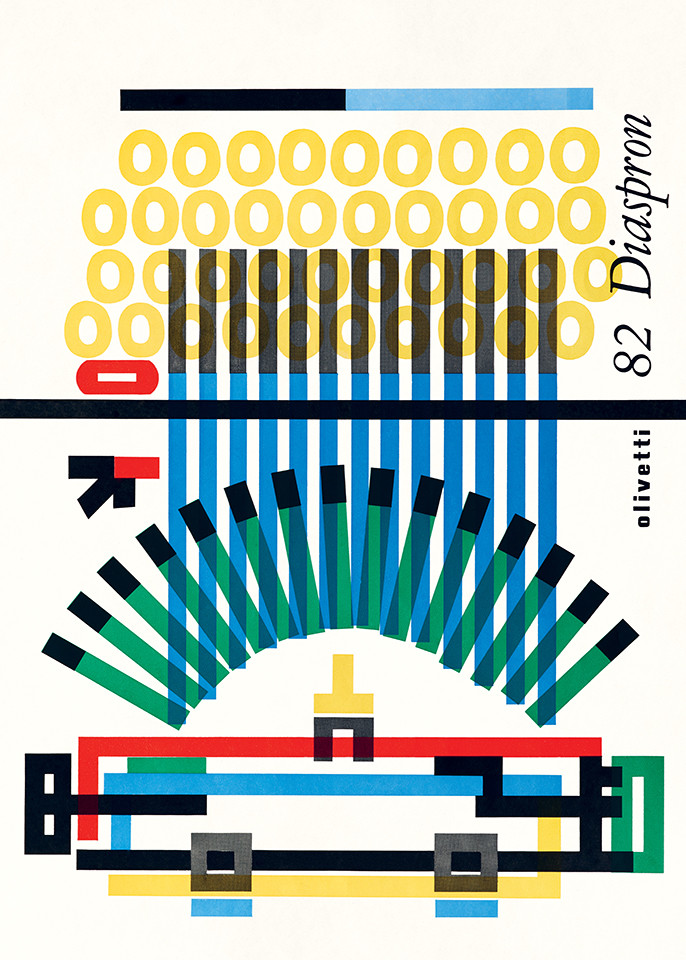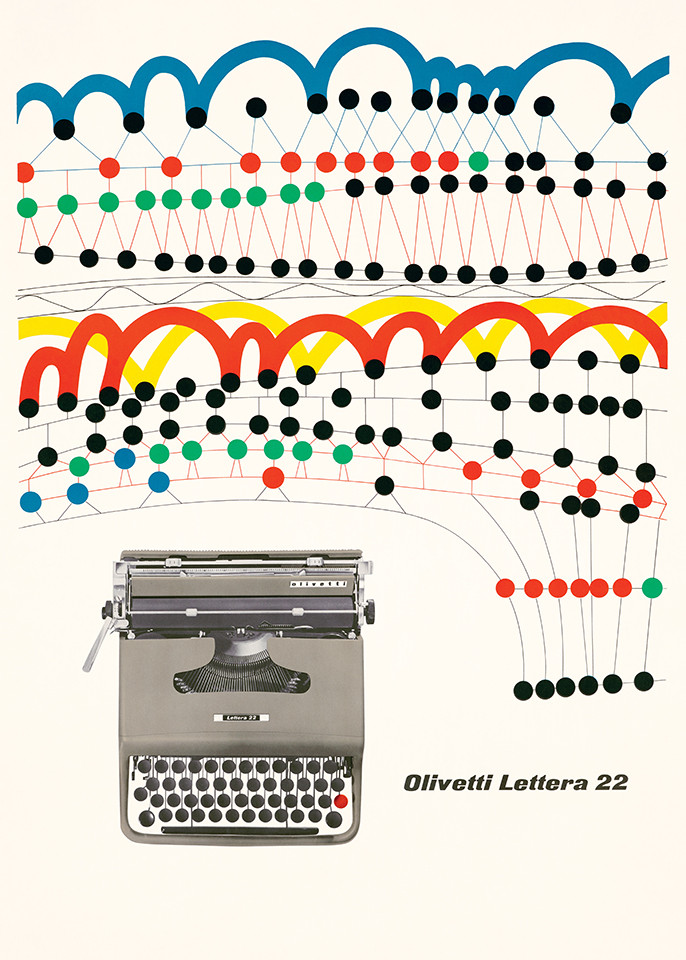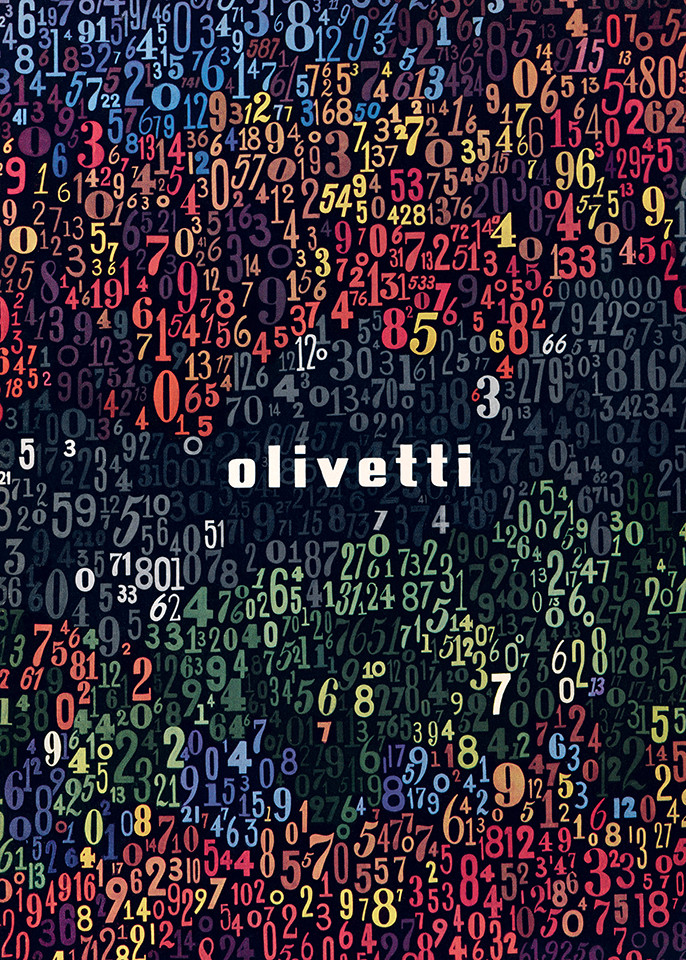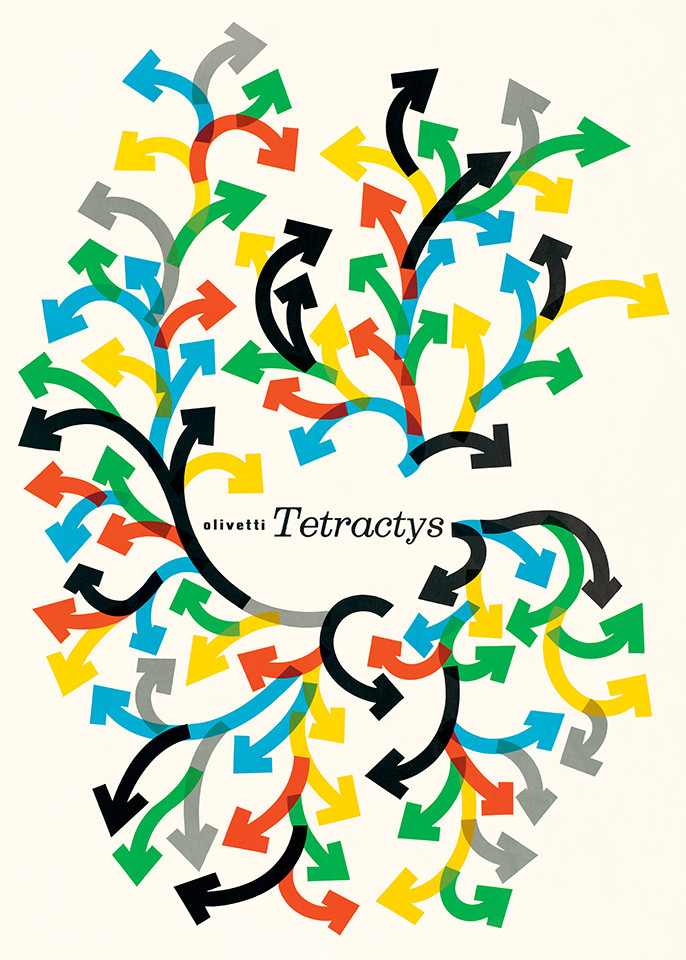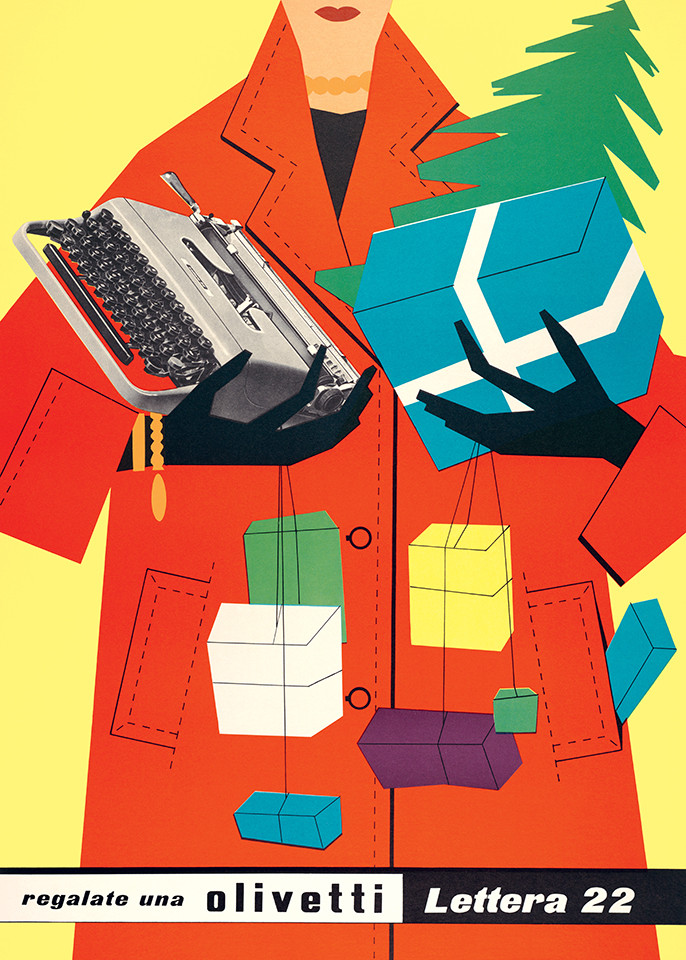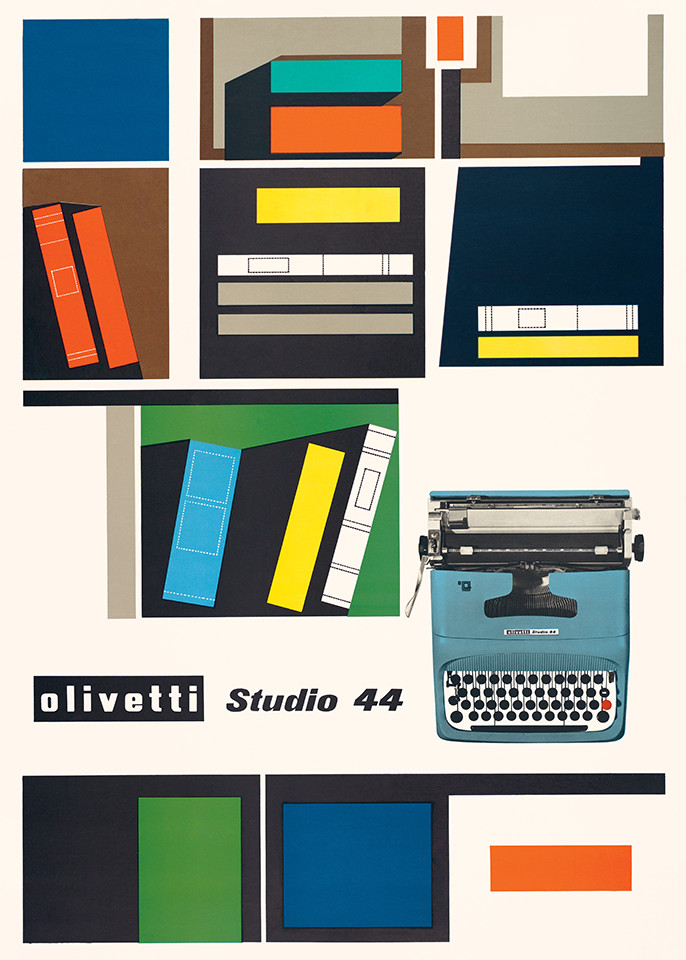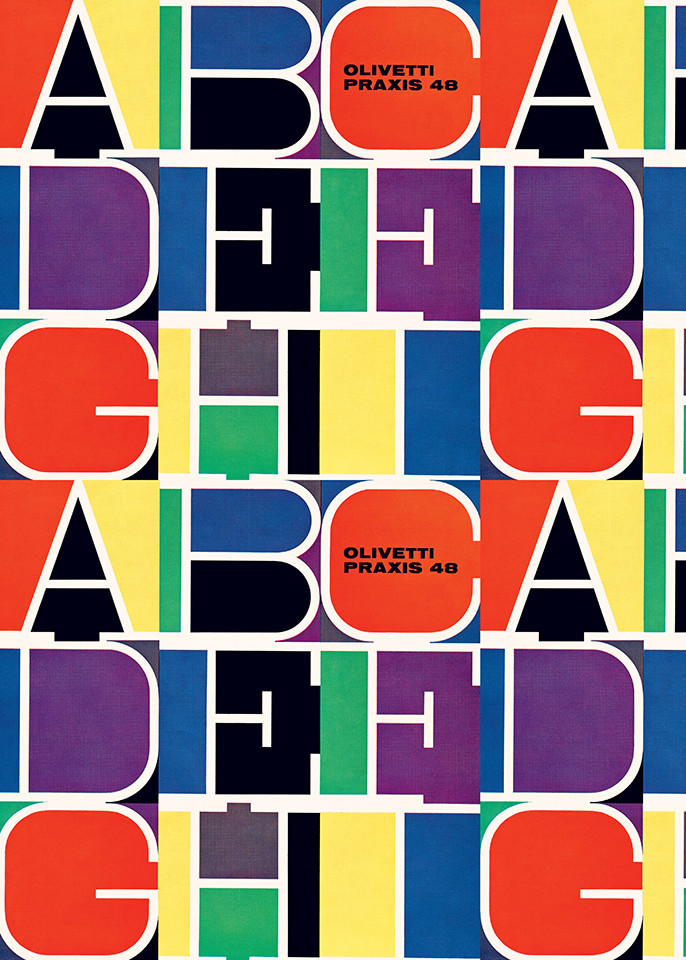
16 oversize sheets featuring iconic art direction from the legendary product design firm
A powerhouse of twentieth-century industrial design, Italian manufacturer Olivetti elevated office life with its stylish and innovative typewriters and calculators. Equally arresting are the company’s print advertisements, which celebrate the devices’ sophisticated mechanics and approachable form factor with smart graphics and vibrant color.
Olivetti Creative Papers collects sixteen of these promotions in oversize perforated sheets, including abstract typographic patterns, eye-pleasing diagrams, and mod midcentury illustrations from esteemed designers like Giovanni Pintori, Egidio Bonfante, and Herbert Bayer.
About Olivetti
Electrical engineer Camillo Olivetti (1868–1943) founded Olivetti in the small town of Ivrea, near Turin, in 1908. His son Adriano (1901–1960) took over in 1938 and quickly embraced visual design, making it the core of Olivetti’s corporate identity.
Olivetti’s print promotions match its product line in charm and novelty, in large part due to the vision of art director Giovanni Pintori (1912–1999), who began working in the advertising department in 1936 and served as art director from 1950 to 1967.